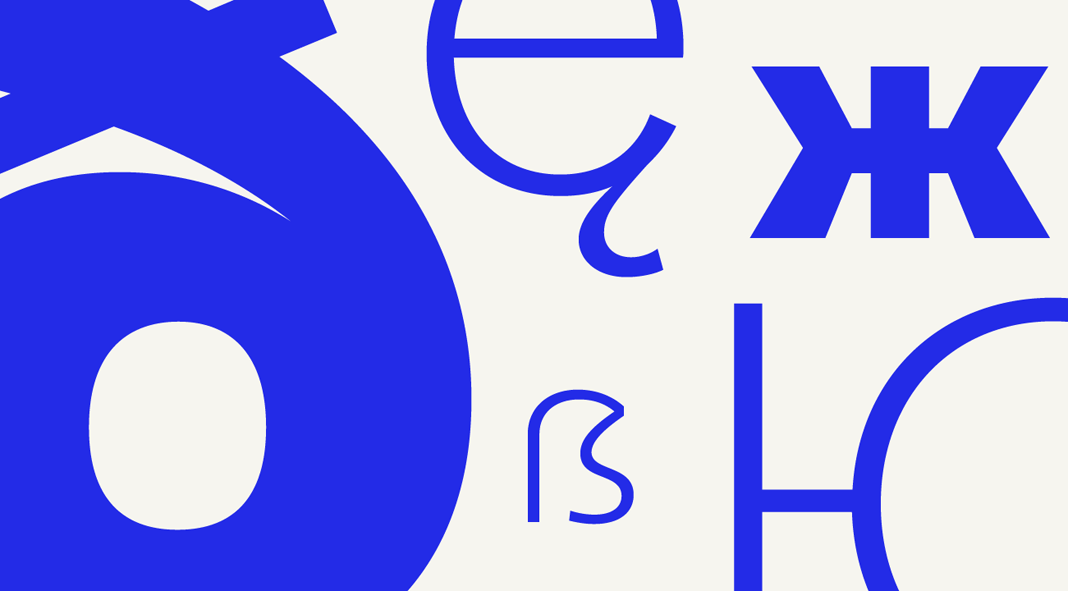
Quarion, a neo-humanist sans serif font family with a geometric approach.
Designed and published in 2017 by Rene Bieder, the Quarion font family is a new interpretation of geometric typefaces from the early 20th century such as Futura, Neuzeit Grotesk, Recta, and many others. This neo-humanist sans serif offers an inviting yet sophisticated look. Its visually pleasing and well readable design masterfully combines circular shapes with a medium stroke contrast. You can use this typographic workhorse for any kind of print and digital media. The family consists of 22 fonts in total including numerous weights and matching Italics plus two free demo styles. Furthermore, Quarion is equipped with many alternative characters and additional typographic features. You can get it as conventional desktop and web font. To know more about this beautiful neo-humanist sans serif type family, feel free to follow the link below.